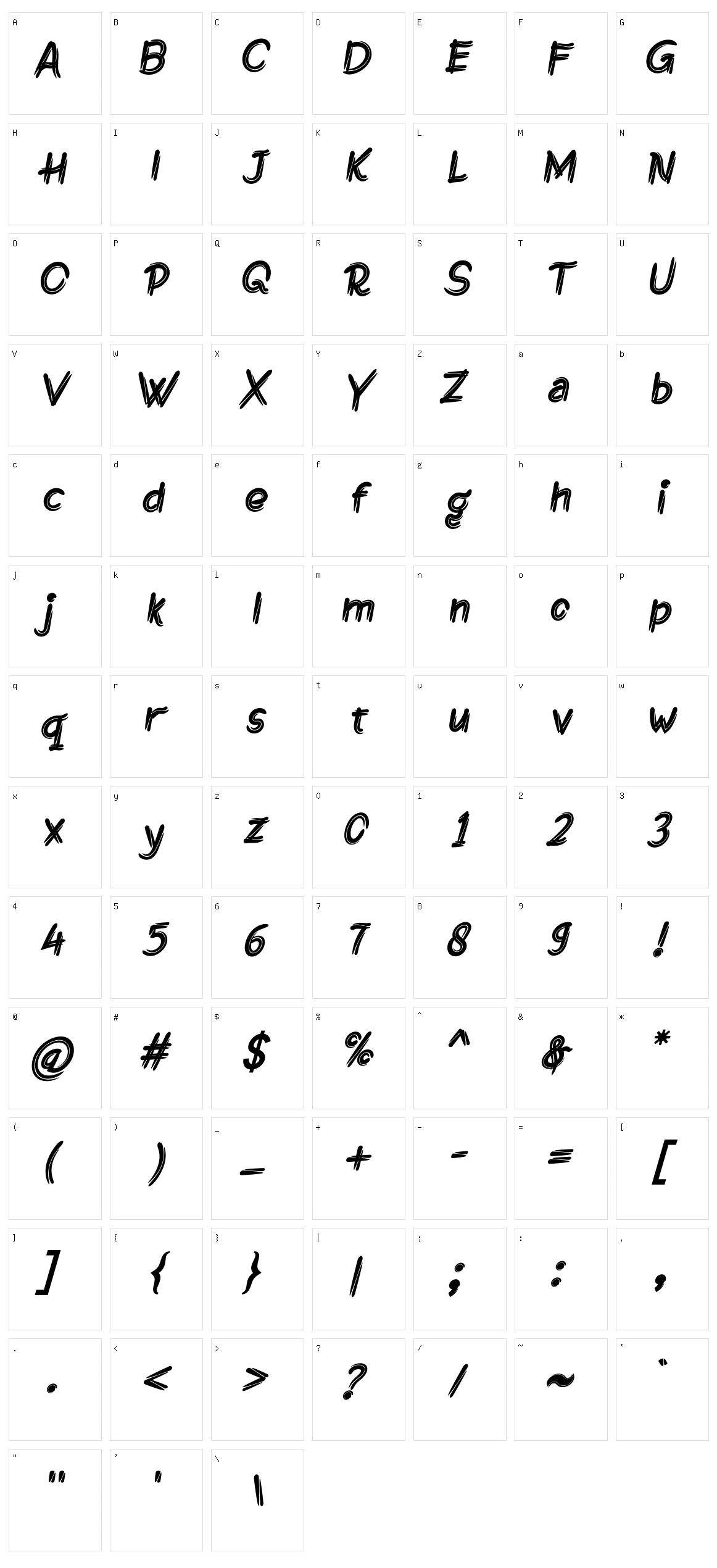
The free font Jagiq is carefully designed by twinletter, showcasing a thoughtful balance of creativity and usability and falls under the Script font style. When you download the ZIP file, it contains only 271.13 KB of font files, making it lightweight and quick to download. Please review the license details below to understand permitted usage and distribution rights. If license information is not available, we recommend using this font for personal projects only or contacting the author directly for commercial usage permissions.